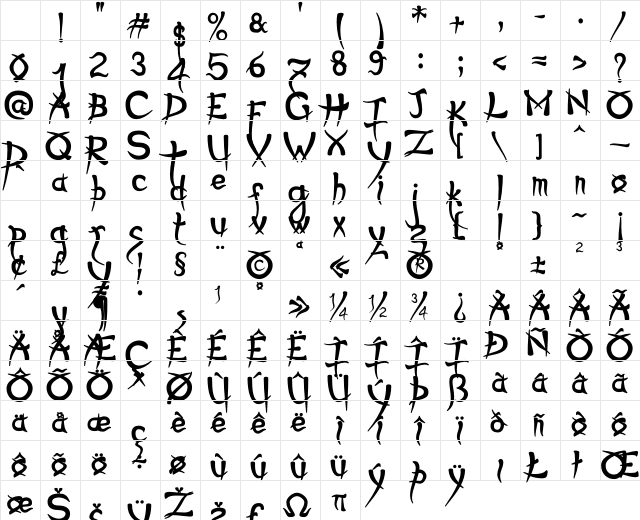
Complete Psycho Bold glyph index. Displaying only characters natively supported by Psycho Bold font.
Psycho is a composed and adaptable typeface that performs quietly and consistently across a wide range of design contexts. Its bold stroke weight gives it real presence on the page.